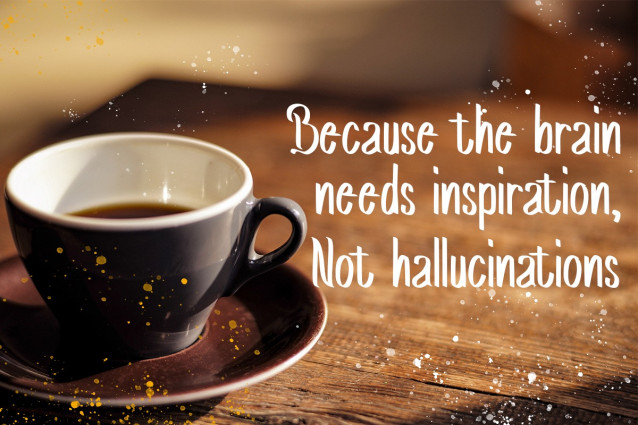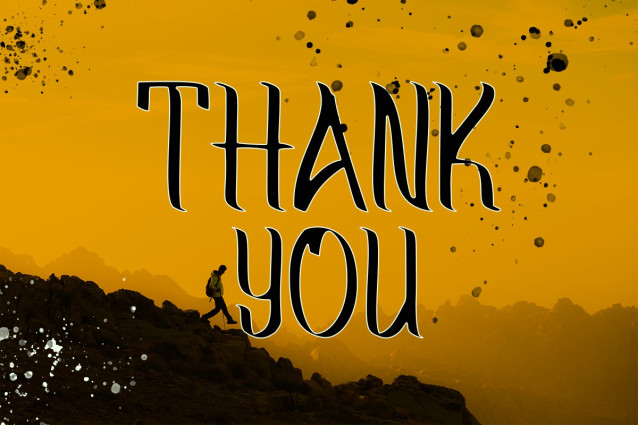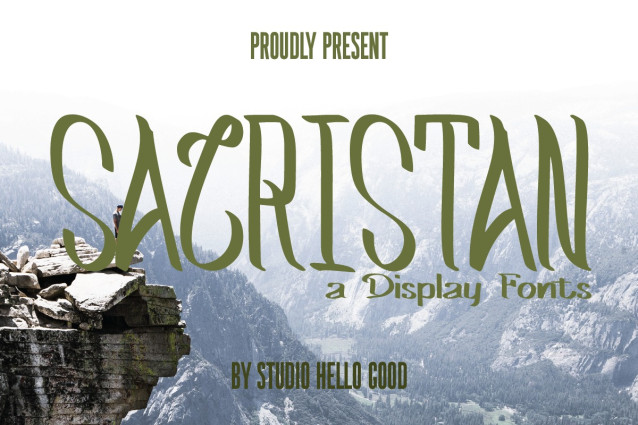
Sacristan Font
Sacristan Font is a captivating combination of timeless elegance and bold contemporary style, tailor-made for banners, displays and promotional materials. Its smooth, refined lines exude a refined authority while commanding attention with its striking presence.
This font boasts a harmonious balance of sharp, confident edges and subtle, nuanced curves, allowing each letter to stand out with stately grace. Its versatility shines through in its ability to convey both professionalism and modernity, making it an ideal choice for a wide range of promotional purposes.
SACRISTAN’s confident strokes and clean, crisp design ensure readability even in large formats, making it a standout choice for banners where readability and visual impact are paramount. Whether used in headlines or as a display accent, its elegant yet sophisticated style adds a touch of prestige and class to any promotional material.
With the ability to seamlessly blend classic sophistication with contemporary appeal, SACRISTAN effortlessly elevates branding, promotions and displays, ensuring a polished and striking visual identity that engages audiences across a variety of marketing platforms.